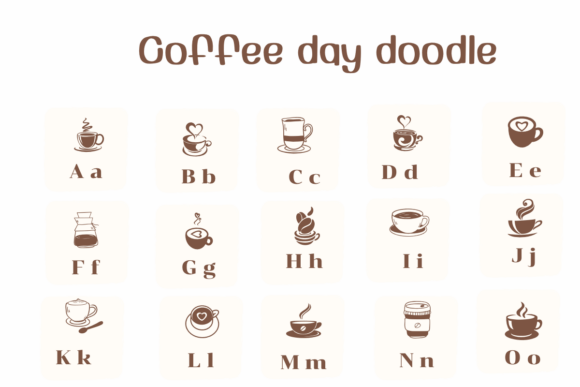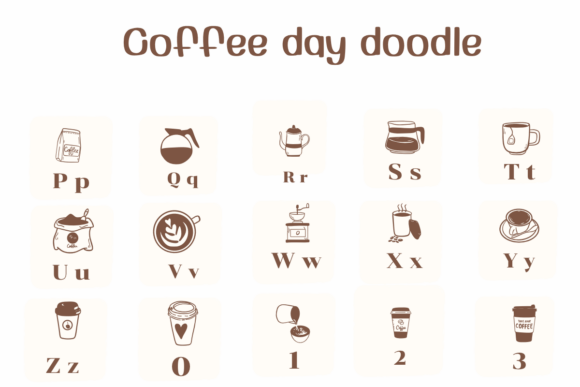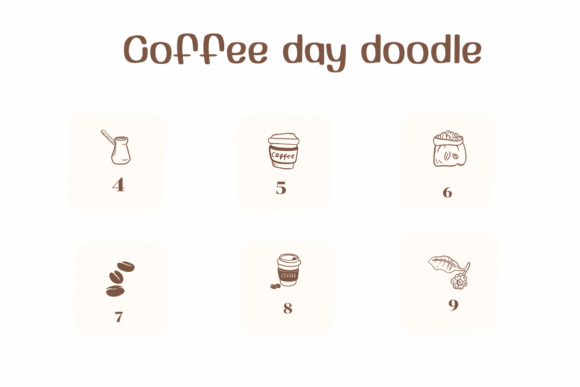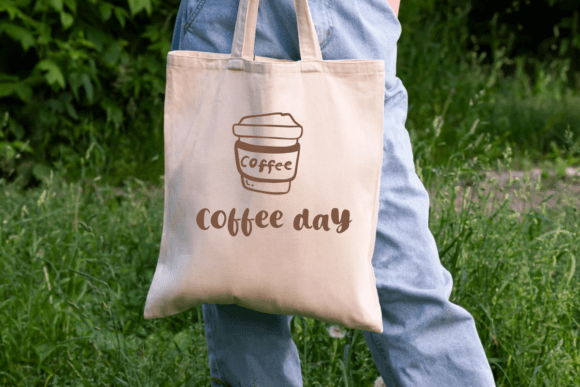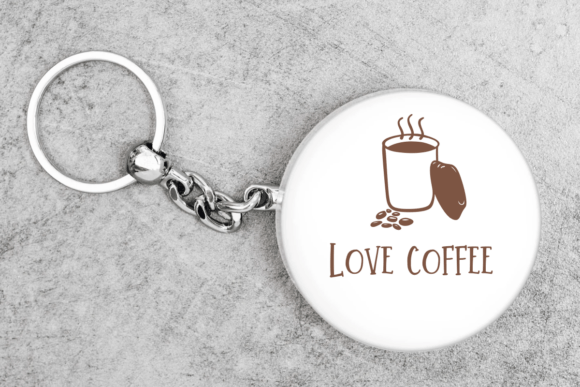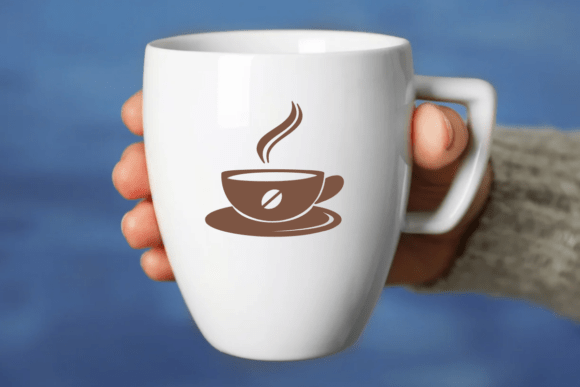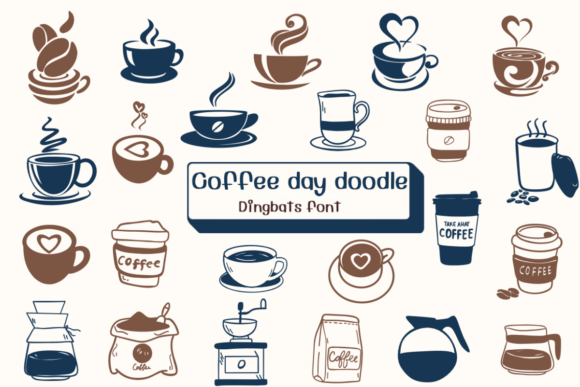
Coffee Day Doodle Font: Elevate Your Creative Projects with a Sketched Style
Are you a designer, crafter, or DIY enthusiast looking for a unique font to add a personal touch to your projects? Look no further than the Coffee Day Doodle Font! This charming dingbats font features a sketched style that can instantly elevate your creative endeavors, from wedding invitations to logos, and everything in between.
What is Coffee Day Doodle Font?
Coffee Day Doodle Font is a dingbats font that boasts a delightful sketched style. The font is designed to resemble hand-drawn doodles, giving it a warm, organic feel that’s perfect for a wide range of creative projects. With its unique and playful aesthetic, this font is sure to capture the attention of your audience and leave a lasting impression.
Uses for Coffee Day Doodle Font
The versatility of Coffee Day Doodle Font makes it an excellent addition to any designer’s or crafter’s toolkit. Here are just a few ideas for how you can use this font to enhance your creative projects:
- Wedding Invitations: Add a touch of whimsy and romance to your wedding invitations with Coffee Day Doodle Font. The font’s sketched style pairs perfectly with floral patterns, lace, and other wedding-themed designs.
- DIY and Crafts: Whether you’re creating handmade cards, gift tags, or decorations, Coffee Day Doodle Font is the perfect choice. The font’s playful style adds a personal touch to any DIY project.
- Logos and Branding: Use Coffee Day Doodle Font to create unique and memorable logos for your business or brand. The font’s distinctive style will help you stand out from the competition.
- Decorations: From party decorations to home decor, Coffee Day Doodle Font can add a touch of personality to any design. Use the font to create custom banners, garlands, and other decorative elements.
Benefits of Using Coffee Day Doodle Font
So why choose Coffee Day Doodle Font for your creative projects? Here are just a few benefits of using this unique font:
- Unique Style: Coffee Day Doodle Font offers a distinctive style that’s sure to set your projects apart from the crowd.
- Versatile: From wedding invitations to logos, Coffee Day Doodle Font can be used for a wide range of creative projects.
- High-Quality: The font is designed to be high-quality and clear, making it perfect for both print and digital projects.
Tips for Using Coffee Day Doodle Font
To get the most out of Coffee Day Doodle Font, here are a few tips to keep in mind:
- Experiment with Colors: The font’s sketched style looks great in a variety of colors. Experiment with different hues and combinations to find the perfect look for your project.
- Mix and Match: Don’t be afraid to mix and match Coffee Day Doodle Font with other fonts and design elements. The font’s unique style pairs well with a wide range of design styles.
- Use it for Headlines: Coffee Day Doodle Font is perfect for headlines and titles. Use it to add a touch of personality to your project’s text elements.